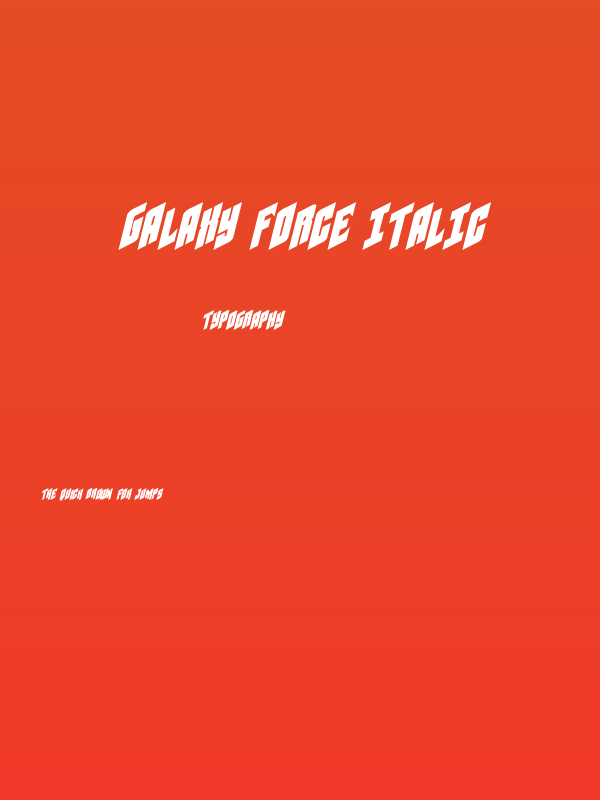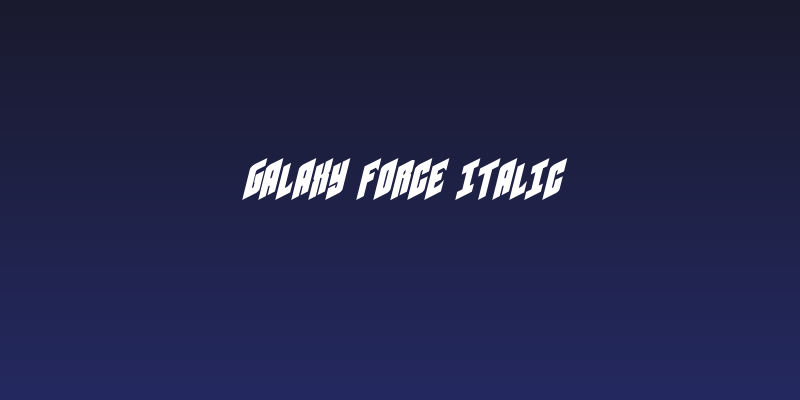
Galaxy Force Italic Font
Galaxy Force Italic Description
This font features a bold, italicized style with sharp, angular edges and a futuristic appearance. The letters are slanted forward, giving a sense of motion and speed. Each character is designed with a consistent thickness, creating a uniform look across the alphabet. The numbers and special characters follow the same dynamic style, ensuring cohesion throughout. This font's aggressive and modern aesthetic makes it ideal for projects that require a strong visual impact.